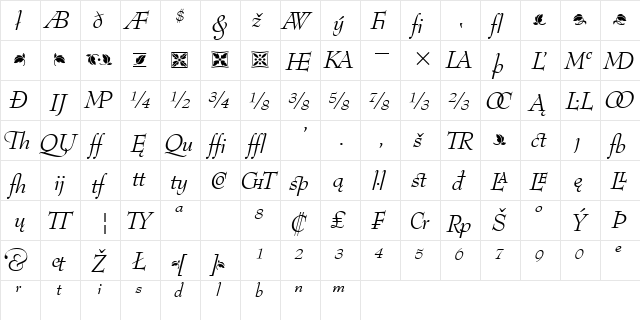
BernhardMod Ext BT Italic Extension
Design Context for BernhardMod Ext BT Typeface
BernhardMod Ext BT takes a measured approach to typography — its balanced proportions and neutral character make it a reliable workhorse for both digital and print work. Its italic angle brings a sense of urgency and motion to the letterforms.
Pro Tip: Try BernhardMod Ext BT for annotation and caption copy alongside an upright companion — the contrast in angle creates a dynamic but ordered typographic system.